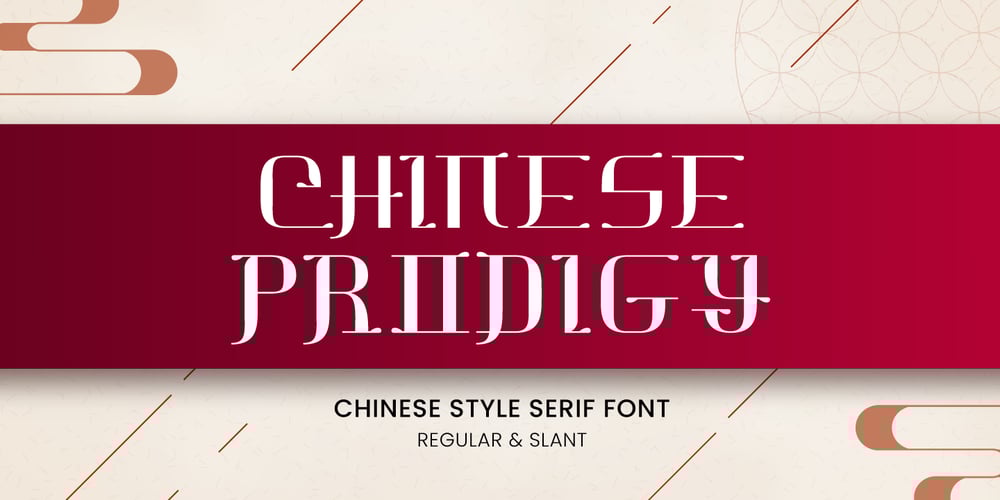
Chinese Prodigy Font Family was designed by Fadli Ramadhan Iskandar and published by Attype Studio. Chinese Prodigy contains 2 styles and family package options. Chinese Prodigy is a Chinese style serif font, with a modern twist. It has 2 styles: regular and slant.Chinese Prodigy is perfect for branding and promotional material for Asian-themed designsThe fonts works best as display typefaces or as beautiful headline fonts, but can also be used in other ways to create stunning designs.Features :- Chinese Prodigy Font Family- Multilingual, US Roman, Latin 1 Support If you have any question, don’t hesitate to contact us.—Hope you enjoy with our font!Attype Studio